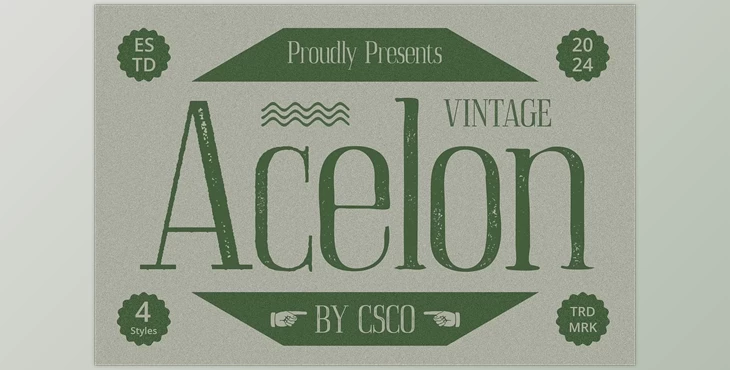
Acelon Vintage Font:
Introducing Acelon Vintage: a fusion of retro allure and modern finesse.
Characterized by its tall, narrow letterforms, Acelon Vintage Serif Condensed exudes sophistication with a contemporary twist.
The font's high contrast and flat serifs strike a delicate balance between traditional elegance and contemporary flair, offering a refined aesthetic with visual intrigue.
Enhanced with vintage stamp, drawn, and rough effects, Acelon Vintage exudes a nostalgic, handcrafted feel, adding texture and character to any project.
Despite its vintage inspiration, this font is remarkably versatile, suitable for branding, editorial design, posters, and signage, lending a touch of retro elegance to diverse creative endeavors.